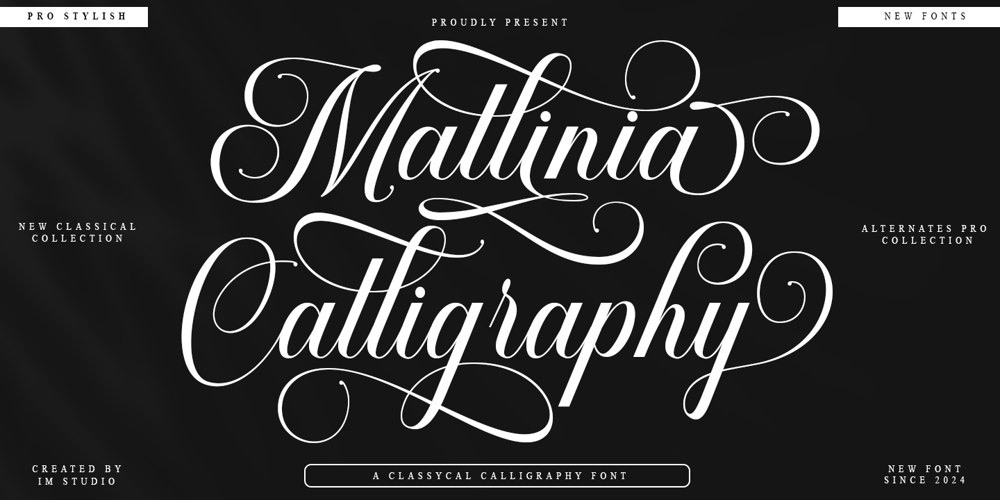
Mallinia Calligraphy
Mallinia Calligraphy font
Mallinia Calligraphy Font Family was designed by Ikhsan Maulana and published by IM Studio. Mallinia Calligraphy contains 1 styles and family package options. Mallinia Calligraphy is a modern calligraphy font that is elegant and charming. This font is designed with smooth brush strokes, soft curves, and details that strengthen the romantic and artistic impression. Each letter has a natural thick and thin line characteristic, creating a dynamic and luxurious appearance.Suitable for various creative purposes, such as wedding invitations, brand logos, greeting cards, to social media designs, Mallinia Calligraphy provides a personal and classy touch. This font is usually equipped with ligature and swash features for design flexibility, allowing users to create unique variations in each project.With an aesthetic that combines classic and modern impressions, Mallinia Calligraphy is an ideal choice for designers who want to add a touch of beauty and luxury to their work.